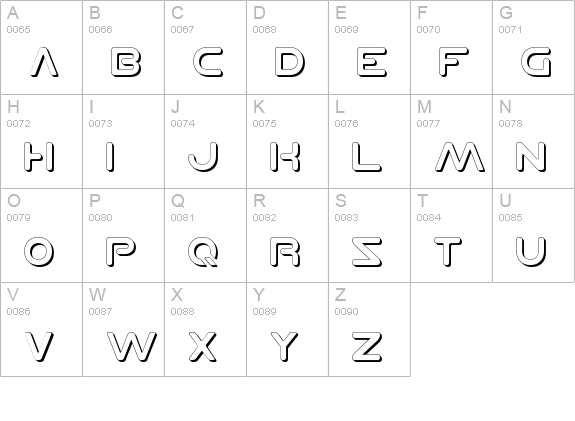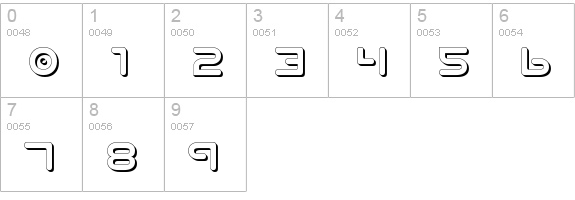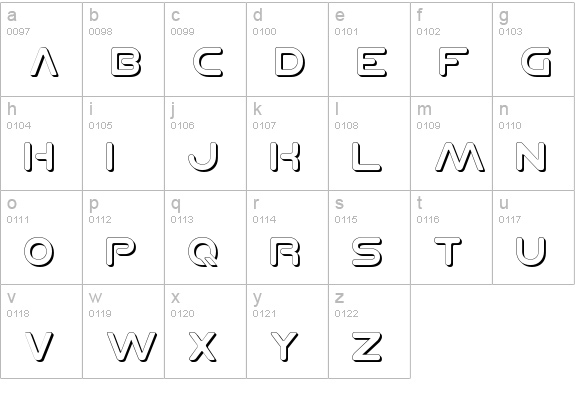
Planet N Shadow Font Details
Planet N Shadow font is an extraordinary creation that exudes an air of mystique and intrigue. With its bold and captivating design, this font is bound to leave a lasting impression on any project it graces. The unique shadow effect adds depth and dimension, elevating the overall visual appeal. What sets Planet N Shadow font apart is not just its remarkable aesthetics but also its accessibility. It is freely available to download at FontsMarket.com, making it a versatile choice for designers, artists, and individuals looking to add a touch of elegance to their work. Whether you are designing a logo, creating eye-catching posters, or crafting stunning website headers, this font is sure to make a striking impact. The carefully crafted letterforms of Planet N Shadow font showcase a perfect balance between sophistication and creativity. The sharp edges and intricate details bring a sense of modernity, while the flowing curves add a touch of elegance. This harmonious blend makes it suitable for a wide range of projects, from contemporary designs to more traditional aesthetics. With its extensive character set, Planet N Shadow font offers versatility in expressing your message. It supports multiple languages and includes a wide range of punctuation marks and symbols, ensuring that your text is accurately represented across various contexts. In addition to its visual appeal, Planet N Shadow font is also highly legible, ensuring that your message is conveyed effectively. The careful spacing and well-defined letterforms make it easy to read, even at smaller sizes, ensuring that your audience can effortlessly absorb the content without any hindrance. Whether you are a professional designer or an aspiring artist, Planet N Shadow font is a valuable addition to your font collection. Its unique style and freely available download at FontsMarket.com make it an exceptional choice for those seeking to add a touch of sophistication and allure to their creative endeavors.